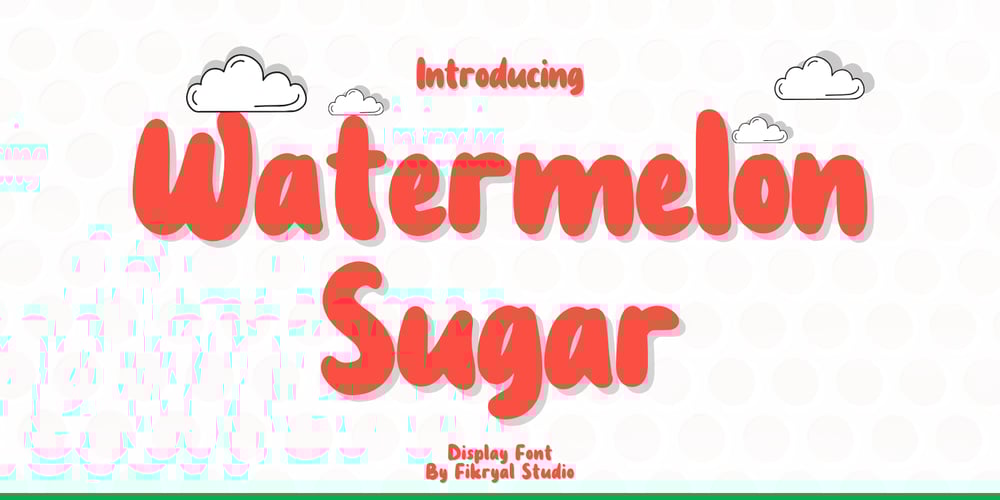
Watermelon Sugar
Watermelon Sugar font
Watermelon Sugar Font Family was designed by Muhammad Fikry and published by Fikryal. Watermelon Sugar contains 1 styles and family package options. Watermelon Sugar is a fun and vibrant handwritten display font, perfect for adding a playful touch to your designs. With its authentic hand-drawn charm, this font is ideal for summer-themed projects, children’s books, social media graphics, and more.Features: Handwritten, organic style Uppercase, lowercase, punctuation, and numerals Multilingual support Perfect for branding, posters, and invitations Sweeten up your designs with Watermelon Sugar! Download now and let your creativity shine.If you have any questions please don’t hesitate to contact me.follow my Instagram: fkryallThank you